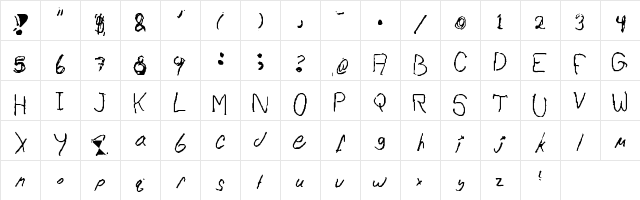
subinev hand Regular
Design Context for subinev hand Typeface
subinev hand flows with the natural rhythm of handwritten lettering, making it ideal for designs that call for warmth and personal expression.
Font Pairing: Combine subinev hand with a simple geometric sans for maximum contrast — the tension between flowing curves and clean structure is a classic typographic pairing.
Pro Tip: Pair subinev hand with a clean sans-serif for supporting text. The contrast between fluid script and geometric structure creates an elegant typographic hierarchy.